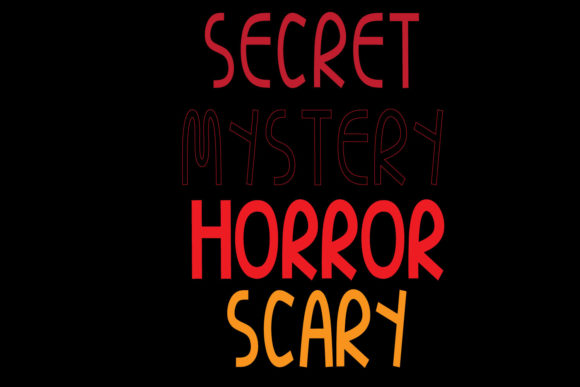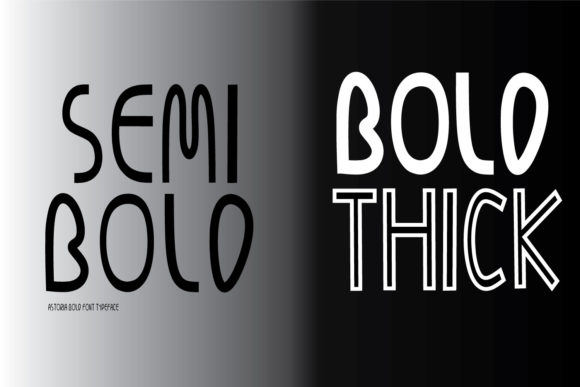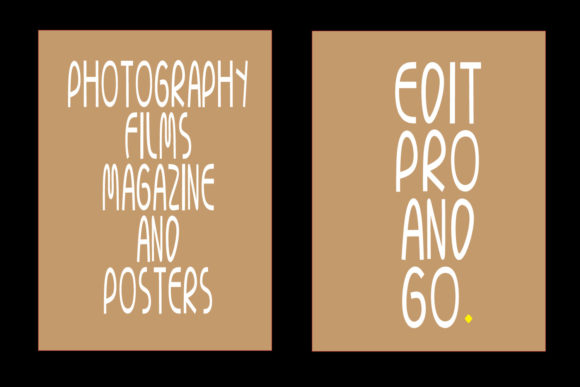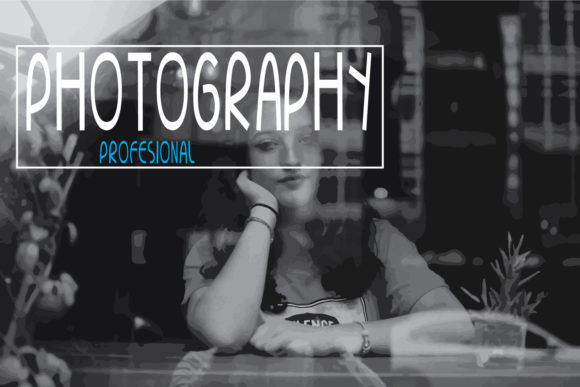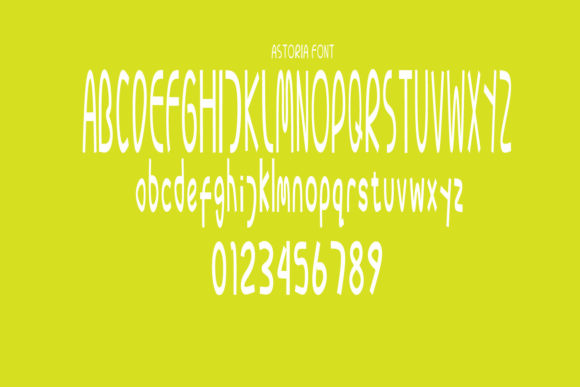
Astoria Font: Elevate Your Designs with a Simple yet Versatile Sans Serif Font
Are you a designer or crafter looking for a font that can effortlessly adapt to various design projects, from formal to informal? Look no further than the Astoria font. This modern and natural sans serif font is designed to inspire creativity and bring a touch of simplicity to your designs. In this article, we’ll dive into the world of Astoria font, exploring its features, benefits, and uses, as well as provide tips on how to make the most of this versatile font.
What is Astoria Font?
Astoria is a simple and casual sans serif font that exudes a sense of modernity and approachability. Its clean lines, rounded edges, and balanced proportions make it an excellent choice for a wide range of design projects. Whether you’re working on a formal business card or an informal social media post, Astoria font is sure to impress.
Key Features of Astoria Font
- Simple and Casual: Astoria font boasts a straightforward and uncomplicated design, making it easy to read and understand.
- Modern and Natural: The font’s modern aesthetic and natural feel ensure that it will complement a variety of design styles.
- Sans Serif: Astoria’s sans serif design makes it perfect for digital and print projects, from websites and social media to brochures and posters.
- Versatile: With Astoria font, the only limit is your imagination! Use it for formal and informal designs, and experiment with different styles and formats.
Benefits of Using Astoria Font
So, why choose Astoria font for your design projects? Here are just a few benefits:
- Legibility: Astoria font is incredibly easy to read, making it perfect for body text, headings, and titles.
- Flexibility: With its versatile design, Astoria font can be used for a wide range of projects, from business cards to billboards.
- Timeless: Unlike trendy fonts that quickly go out of style, Astoria font’s classic design ensures that it will remain relevant for years to come.
- Easy to Pair: Astoria font pairs well with a variety of other fonts, making it easy to create harmonious and visually appealing designs.
Using Astoria Font in Your Designs
Now that we’ve explored the features and benefits of Astoria font, let’s discuss some tips for using it in your designs:
- Experiment with Sizes: Astoria font looks great in various sizes, from small body text to large headings.
- Play with Colors: Try pairing Astoria font with different colors to create visually appealing contrast and hierarchy.
- Add Texture and Patterns: Add texture and patterns to your designs to give them depth and interest.
- Mix and Match: Don’t be afraid to combine Astoria font with other fonts to create unique and eye-catching designs.
| Font Name | Astoria Font |
| Author | zenmalikstudio |
Whether you’re a seasoned designer or just starting out, Astoria font is an excellent choice for any project. Its timeless design and versatility ensure that it will remain a popular choice for years to come. So go ahead, get creative, and see what amazing designs you can create with Astoria font!